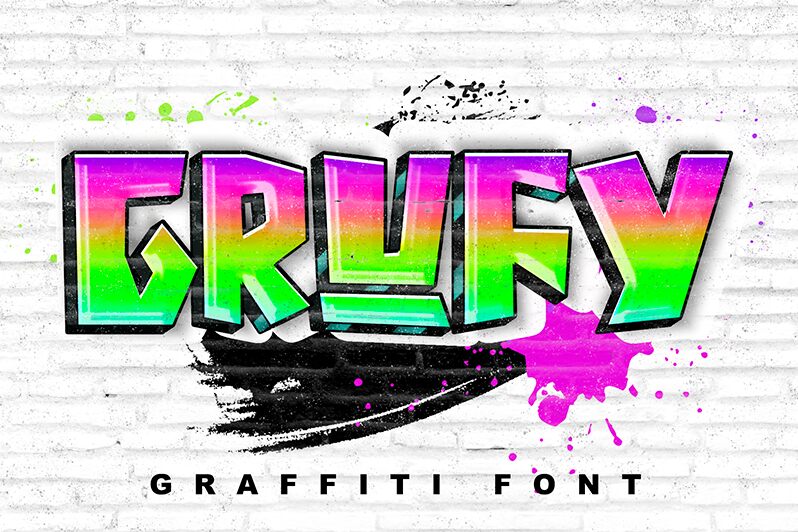
Grufy, the bold and playful display font designed by Stefani Letter in 2020, is the perfect choice for projects that need to make a statement. Its comic graffiti style adds a touch of urban cool to branding and advertising campaigns, while its thick strokes and bold weight ensure maximum impact on posters, flyers or social media graphics. Grufy's unique character set includes uppercase letters, numerals and basic punctuation - perfect for headlines or titles. Whether you're designing for a music festival, streetwear brand or youth-oriented event, Grufy is the font that will make your message stand out from the crowd.